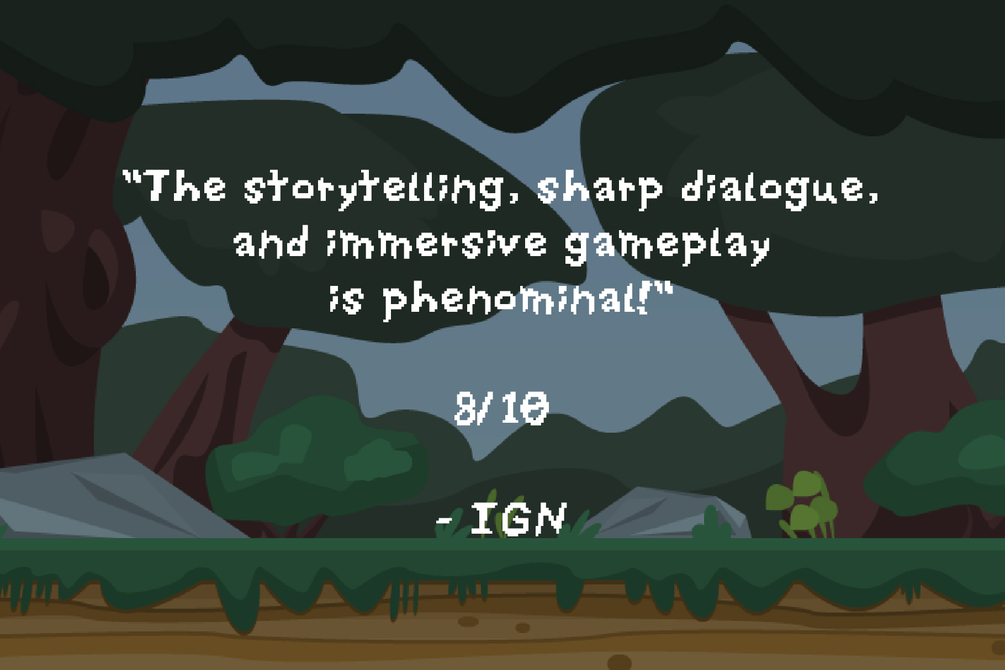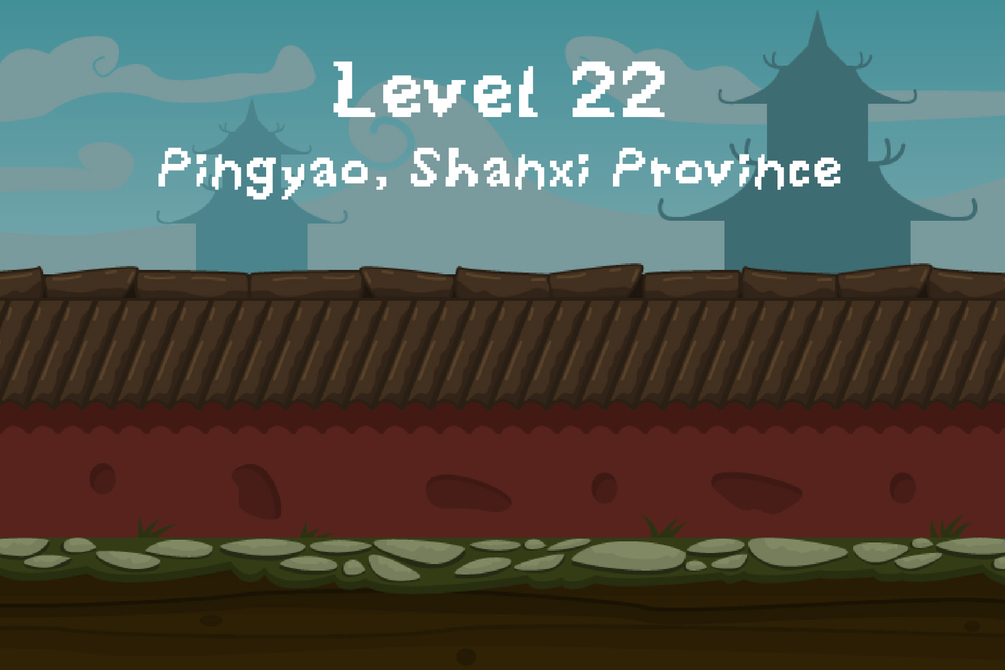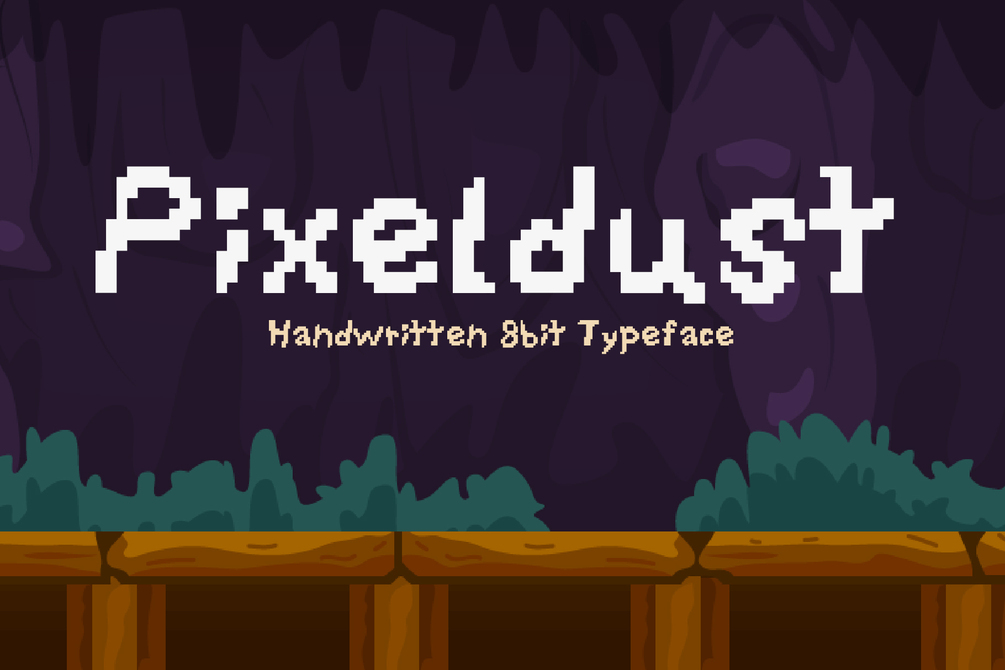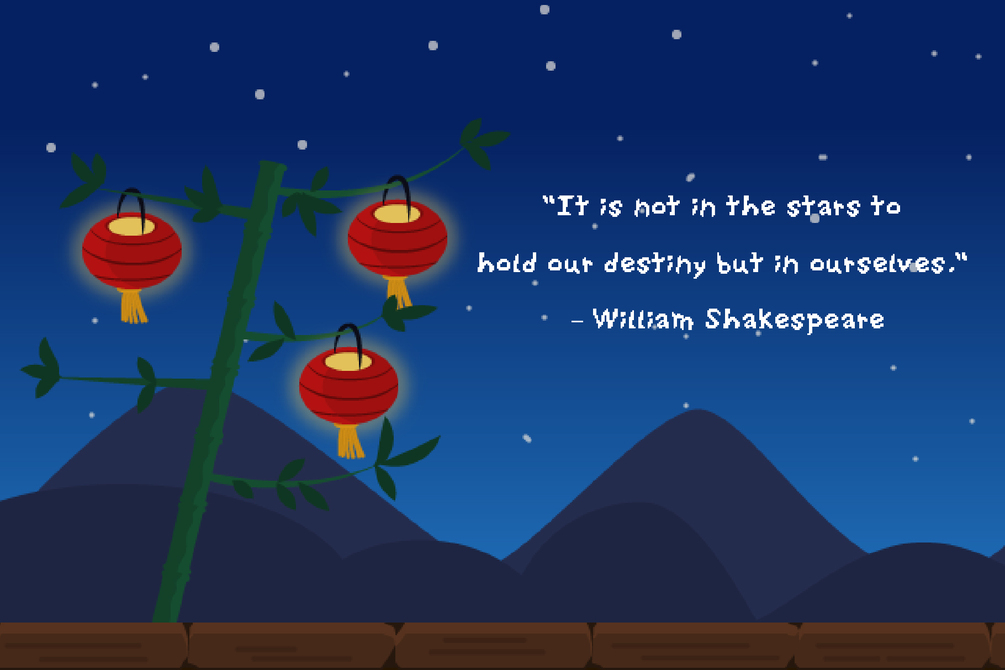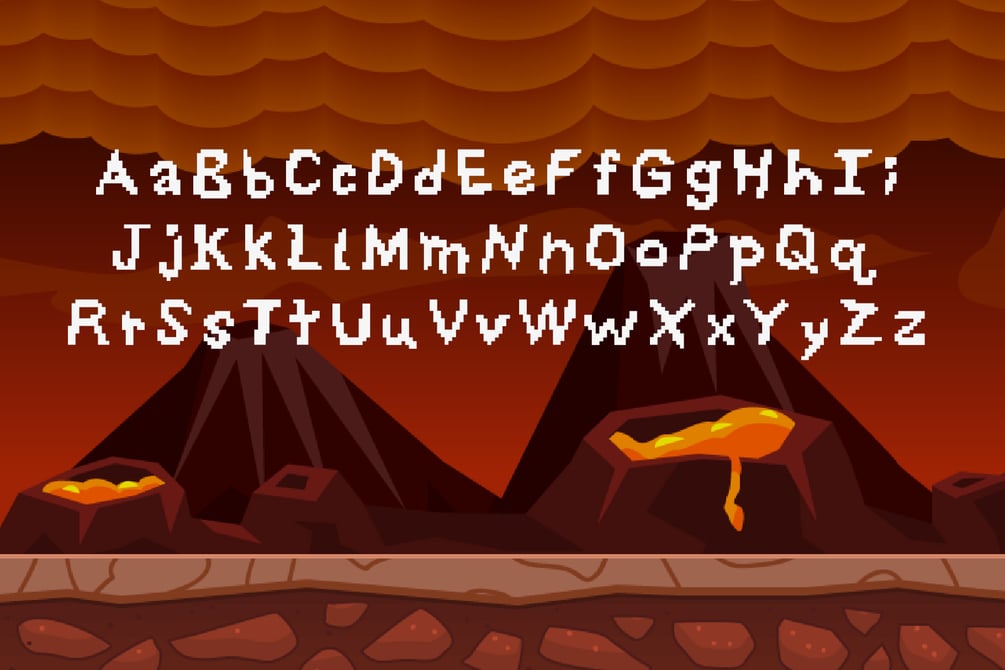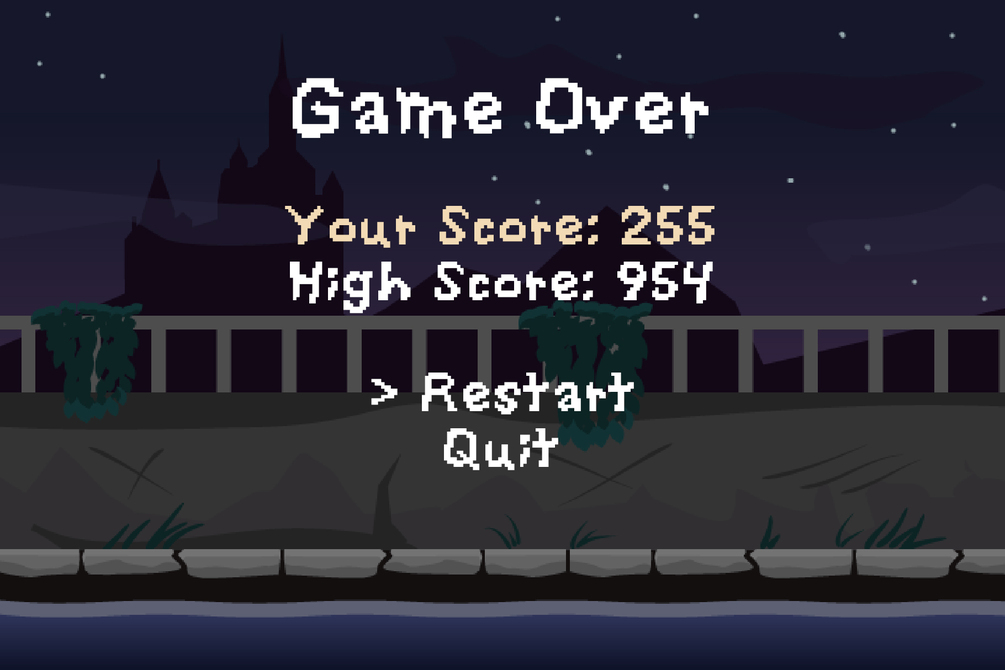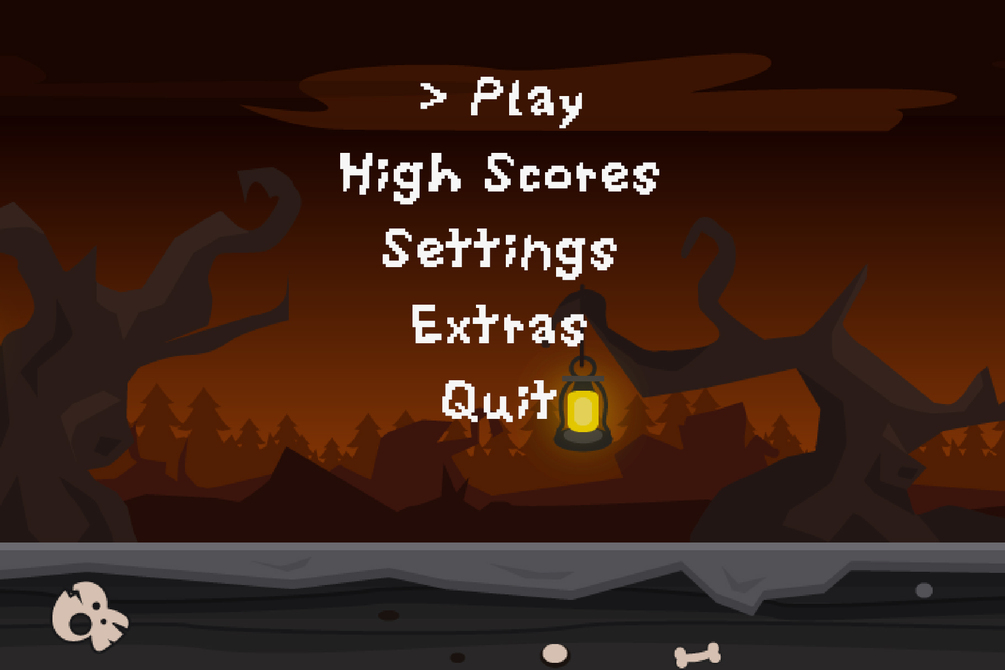
Pixeldust - Handwritten Pixel Font
Pixeldust is a unique pixel typeface that looks like a handwritten font. The possibilities for this font are endless, you can use it for mobile apps, games, retro design projects, and much more.
The font includes large and small caps, be sure to check out the preview images to get a good feel for the font before buying.